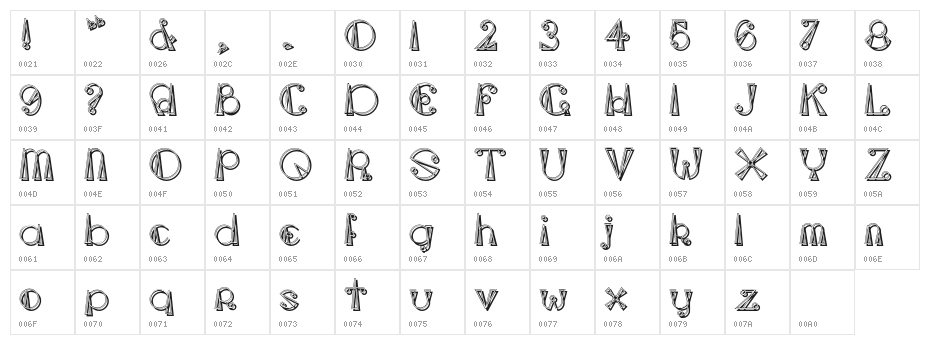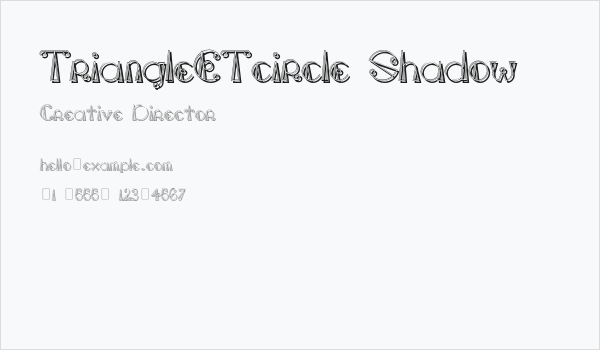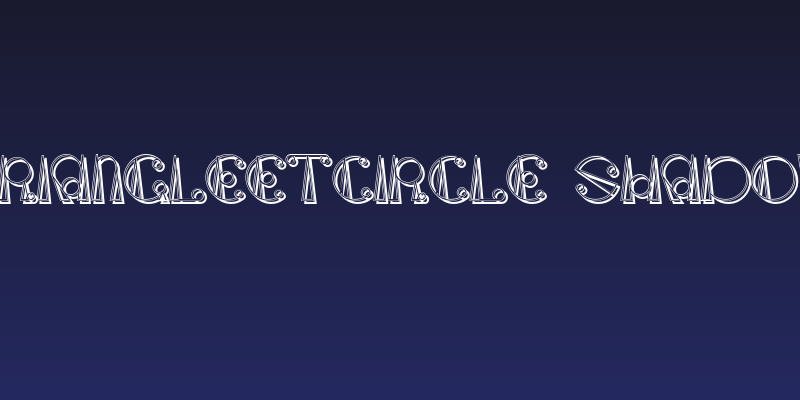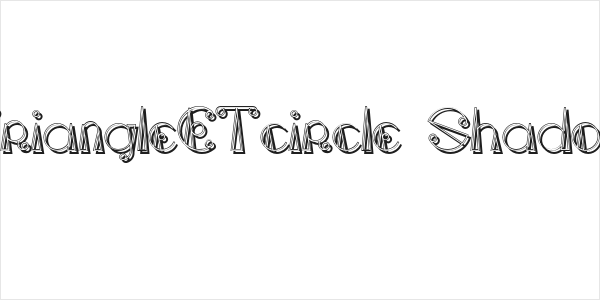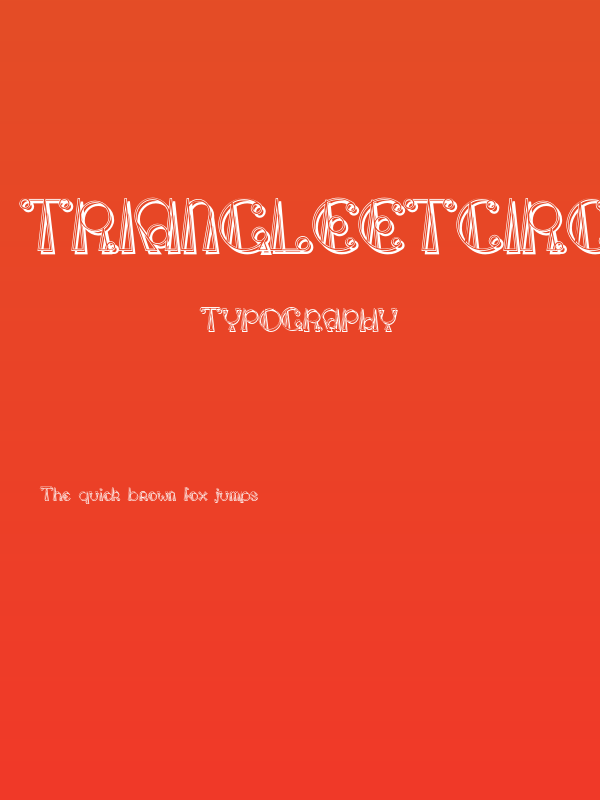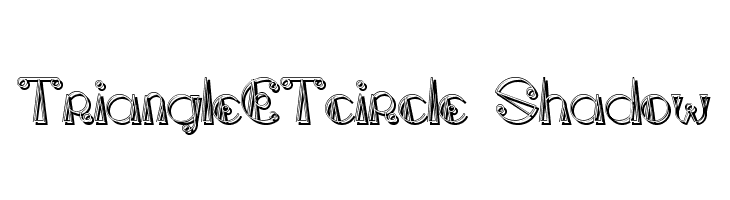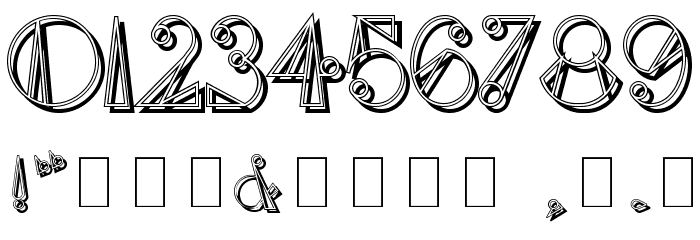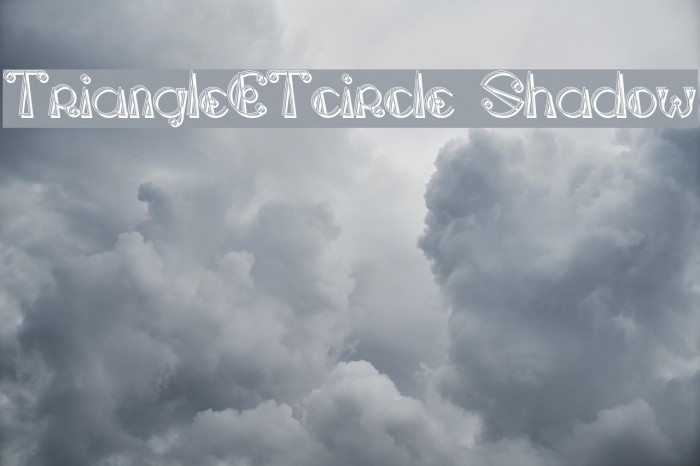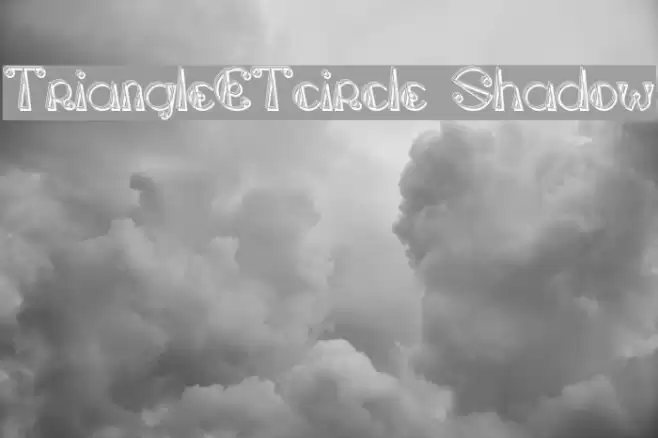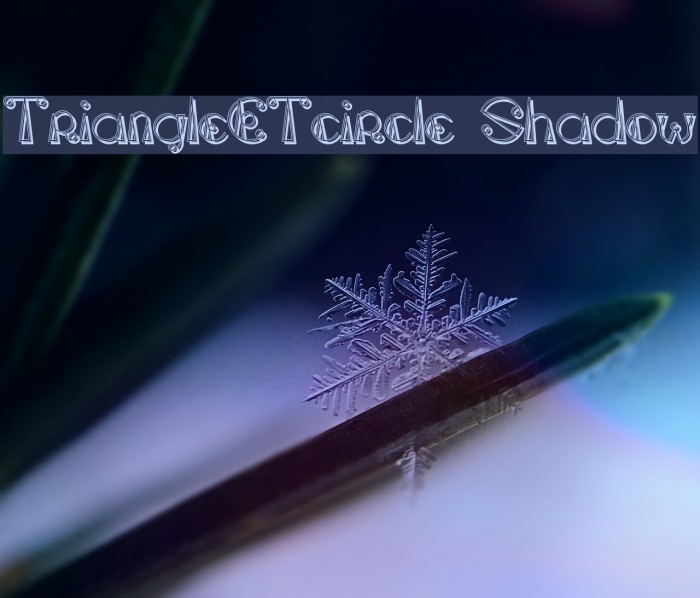
TriangleETcircle Shadow Font
TriangleETcircle Shadow Description
This font features a unique and artistic design, combining geometric shapes with intricate line work. Each character is crafted with a blend of triangles and circles, creating a shadow effect that adds depth and dimension. The uppercase and lowercase letters maintain a consistent style, with bold outlines and decorative elements that make them stand out. Numbers and special characters follow the same design principles, ensuring a cohesive look across all elements. The font's playful yet sophisticated appearance makes it suitable for creative projects that require a distinctive and eye-catching typeface.
| Proposed Projects | Perfect for posters, logos, album covers, and any design work that benefits from a bold, artistic touch. |